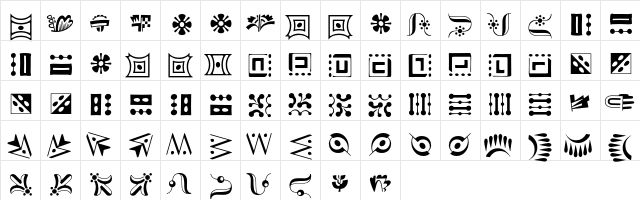
Caravan LH Three
Design Context for Caravan LH Typeface
Caravan LH is a composed and adaptable typeface that performs quietly and consistently across a wide range of design contexts.